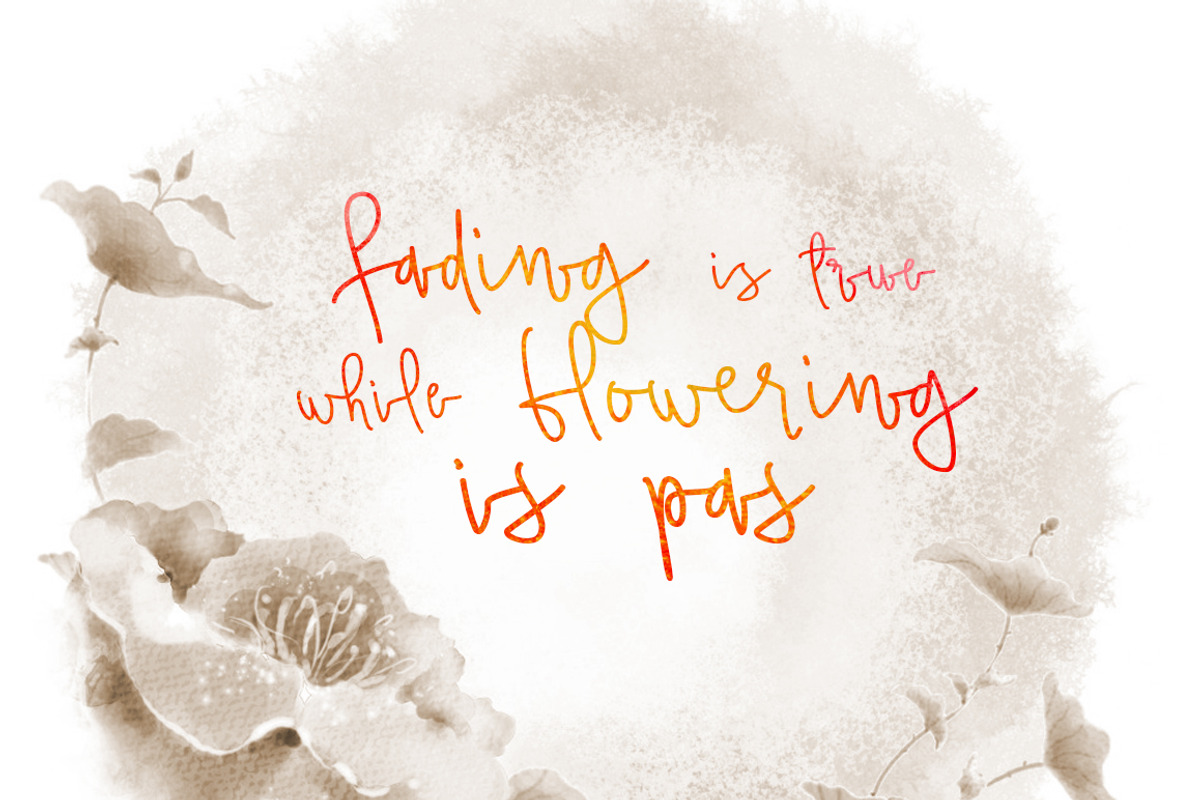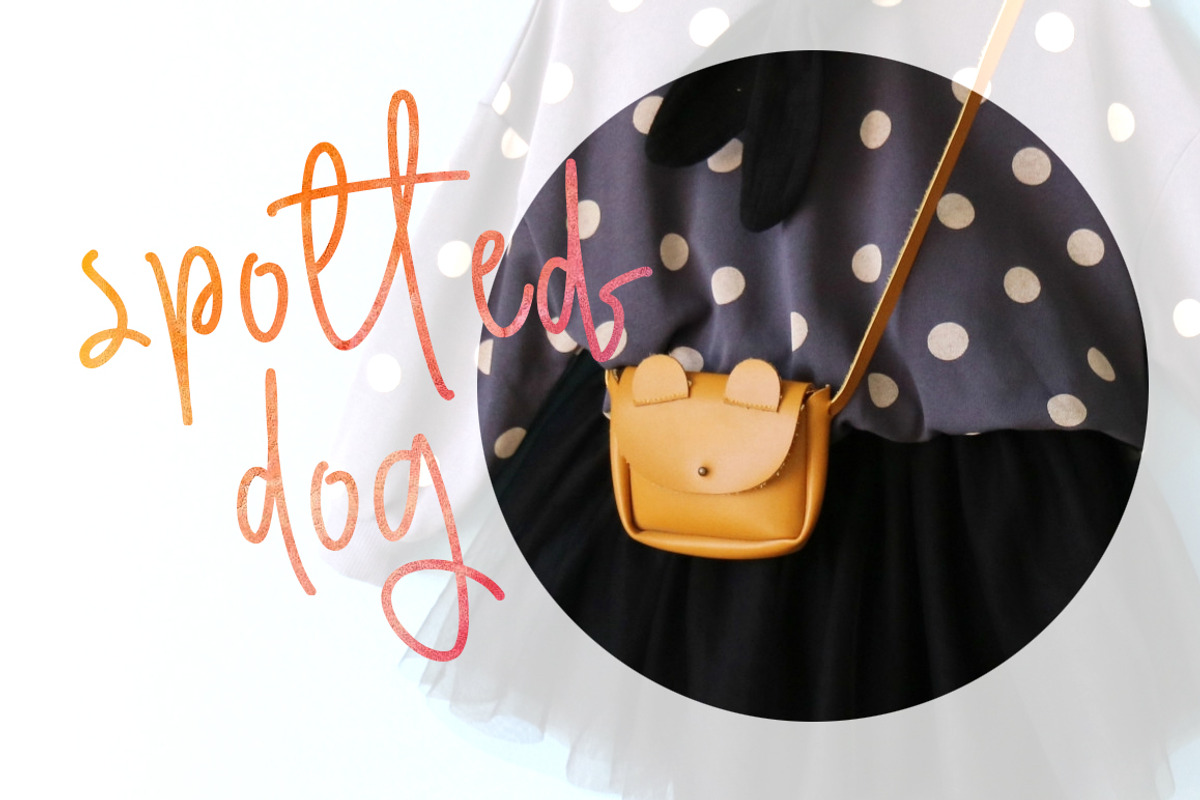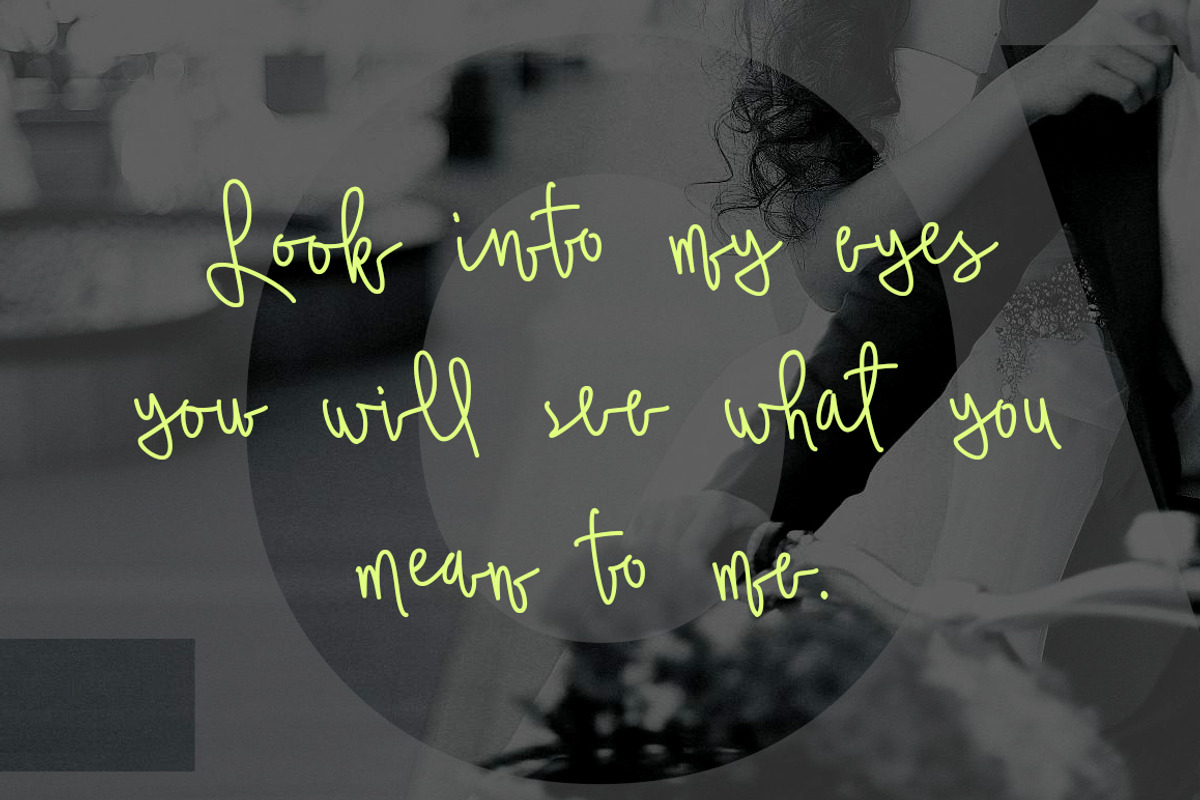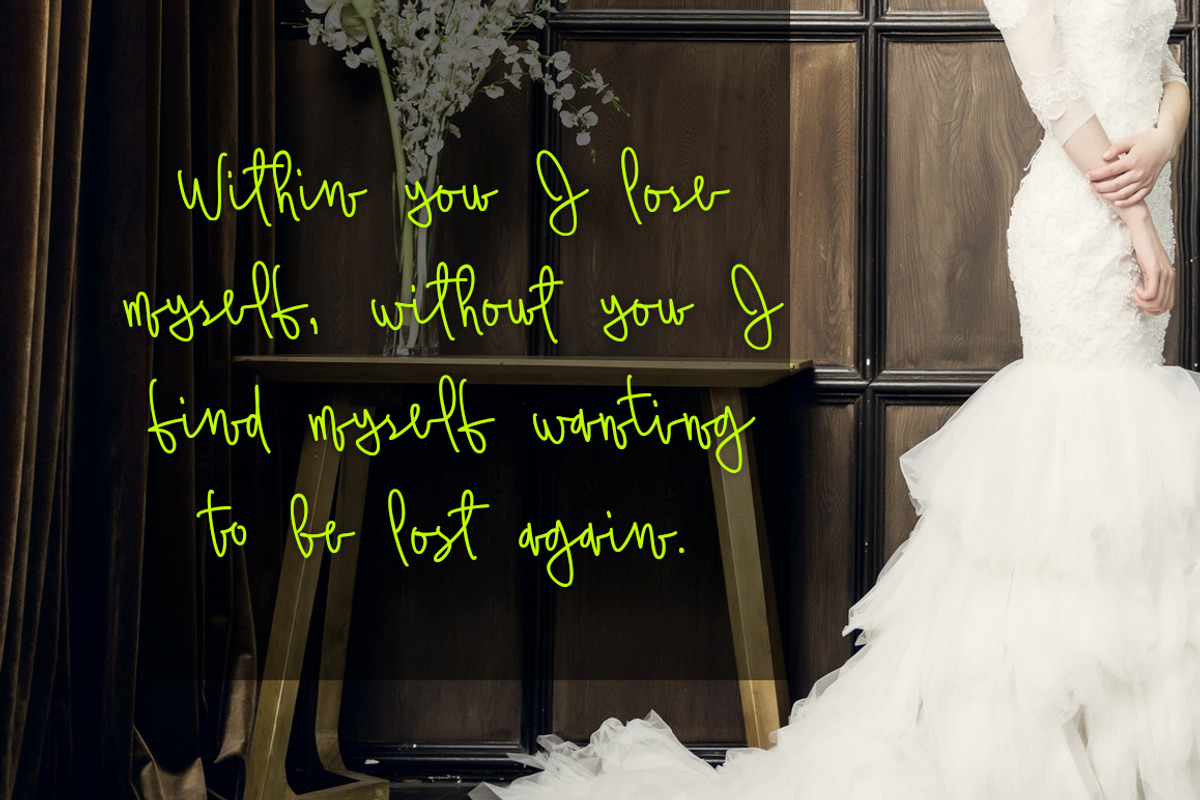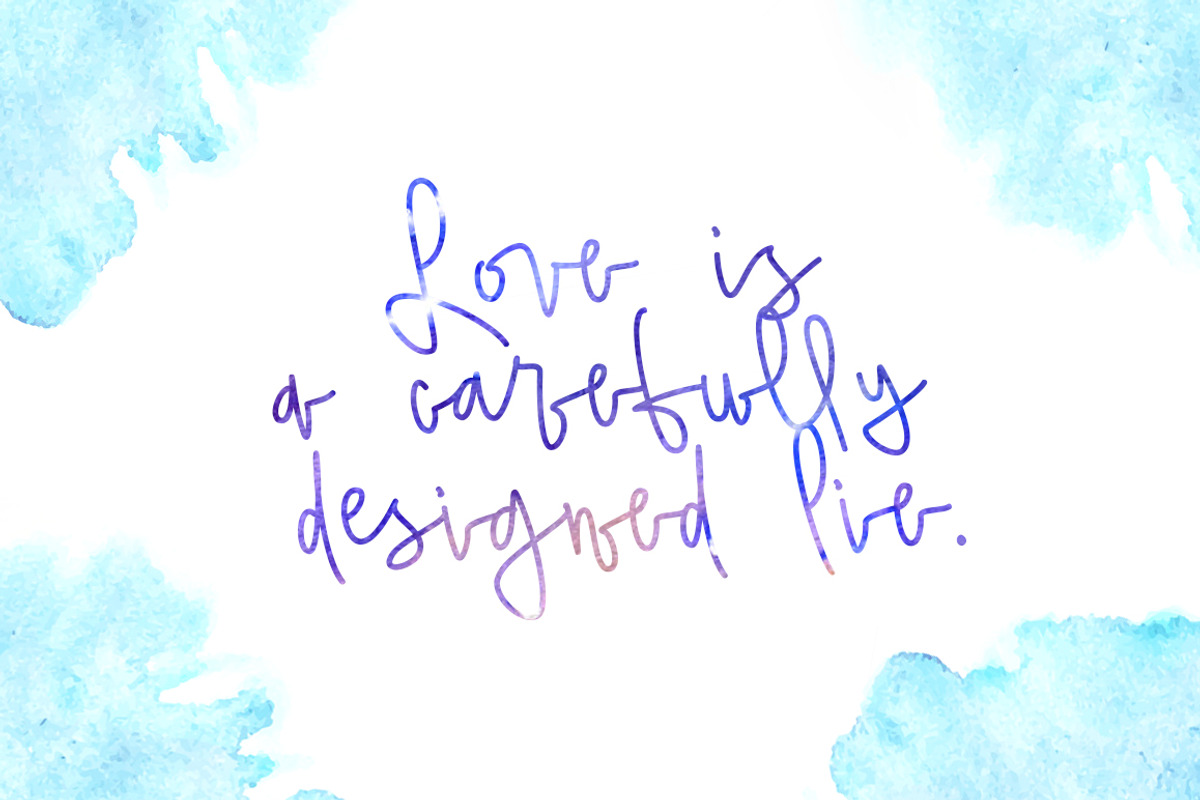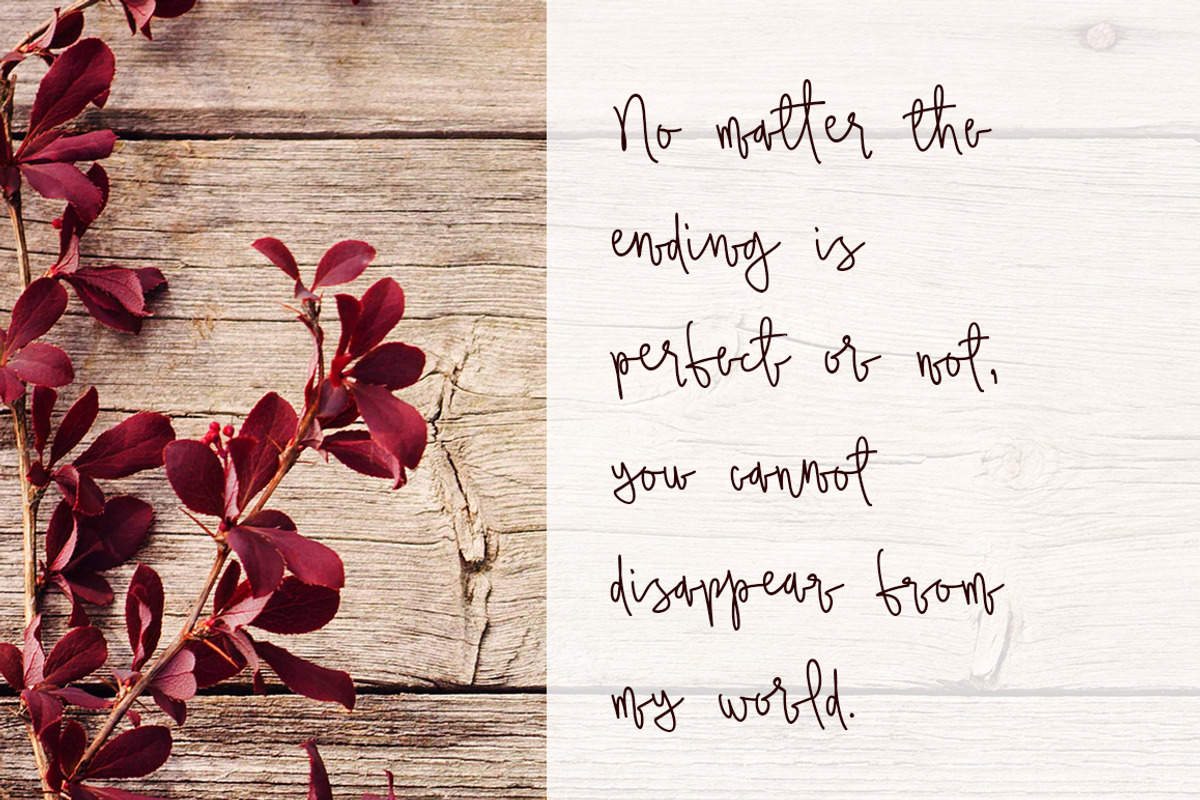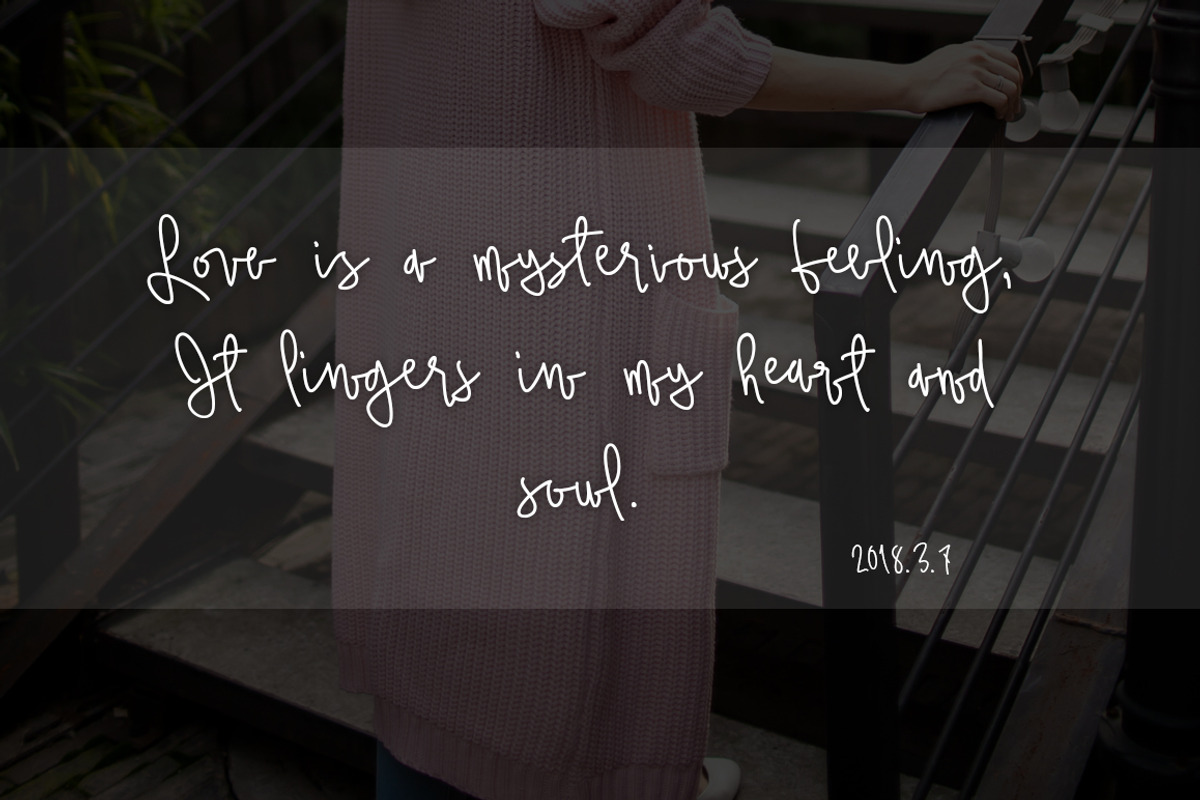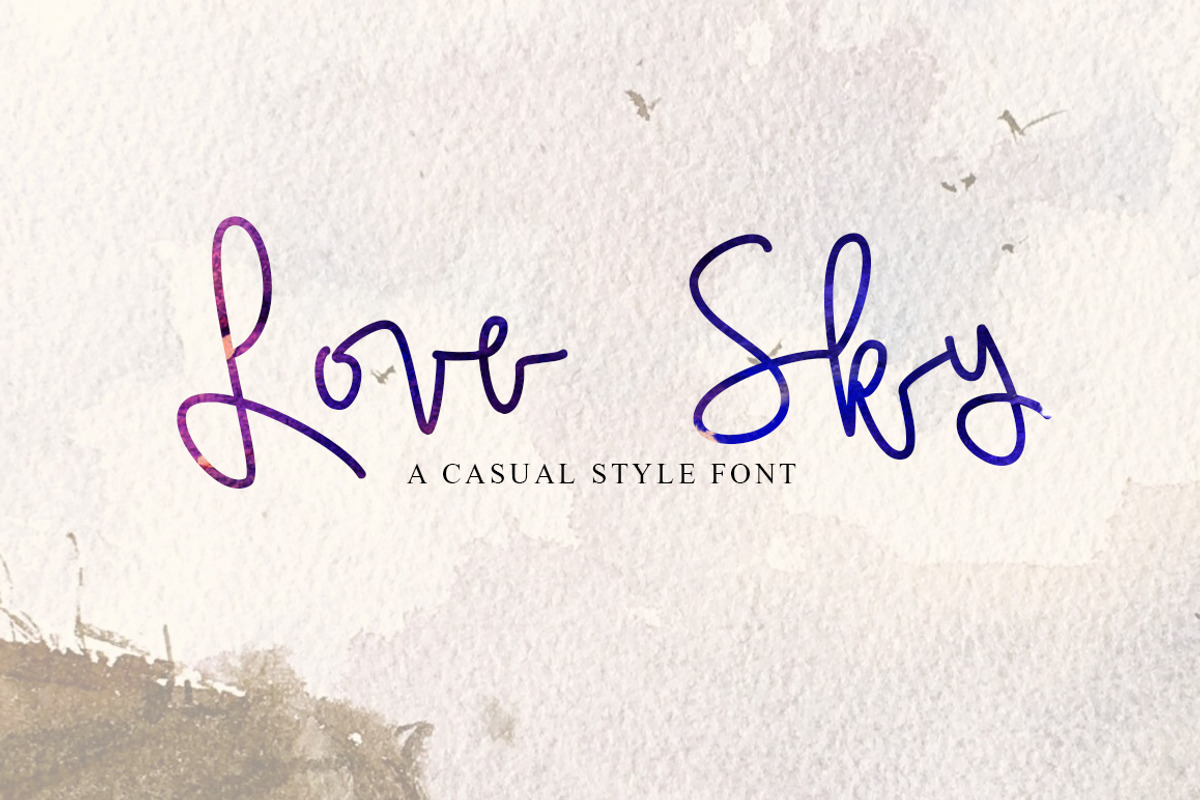
Love Sky font
Love Sky is a set of handwritten style font, It is smooth, free, smart, It include dozens of ligature glyph, the combination of a variety of changes.
Love Sky font by alphadesign fits naturally into Branding, posters, packaging, typography.